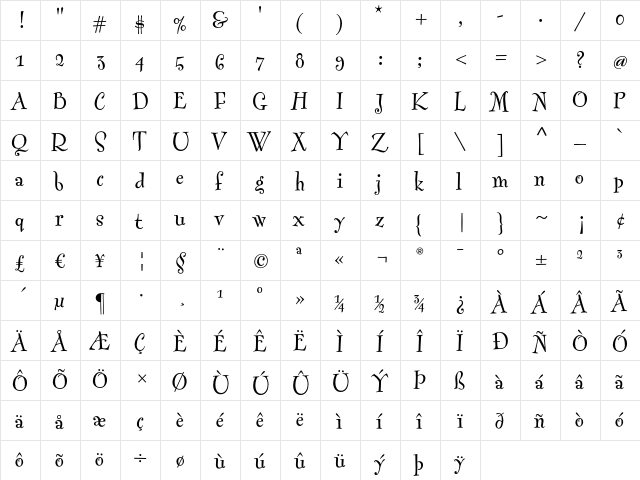
FontesqueText-Regular Regular
Design Context for FontesqueText-Regular Typeface
FontesqueText-Regular is a composed and adaptable typeface that performs quietly and consistently across a wide range of design contexts.